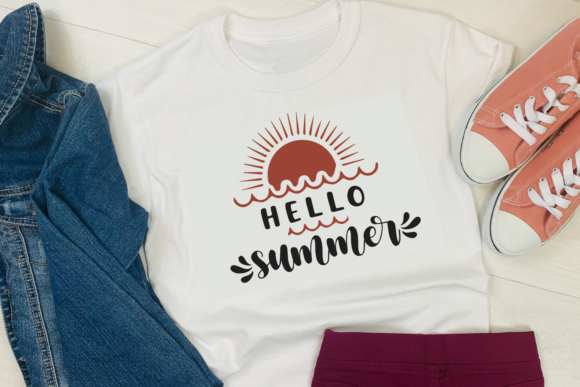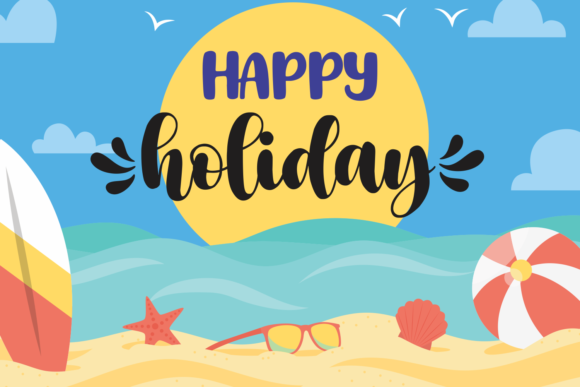
Beach Sunshine Font
db-ku.com - Script & Handwritten -- Beach Sunshine is a delicate and sweet handwritten font. Its distinct and well rounded letters make this font a masterpiece. Fall in love with its bouncy style and use it to create spectacular designs!